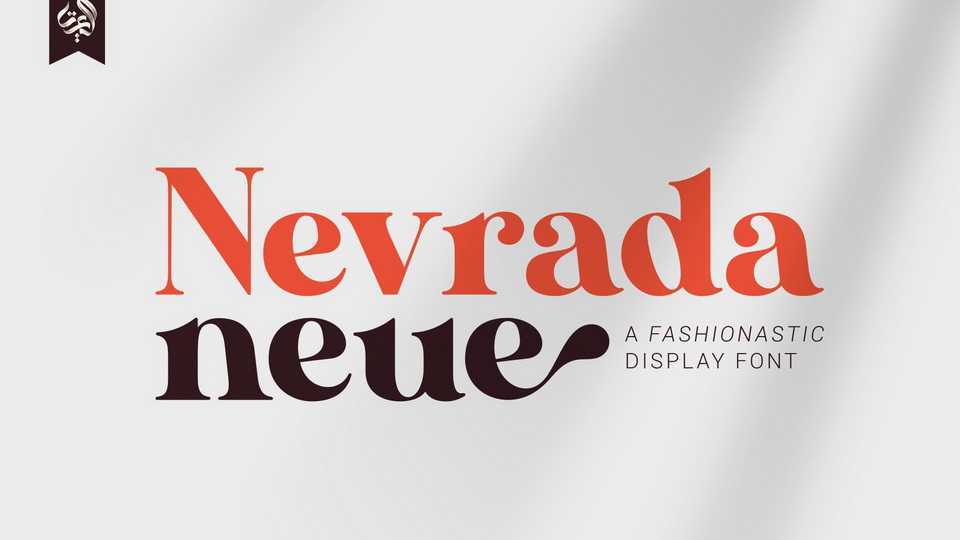
Download Nevrada Neue font, a fashiontastic display typeface inspired by one of leading fashion brand in the world. In general, Nevrada Neue creates a luxurious and elegant look in design.
Designer: Aluyeah Studio